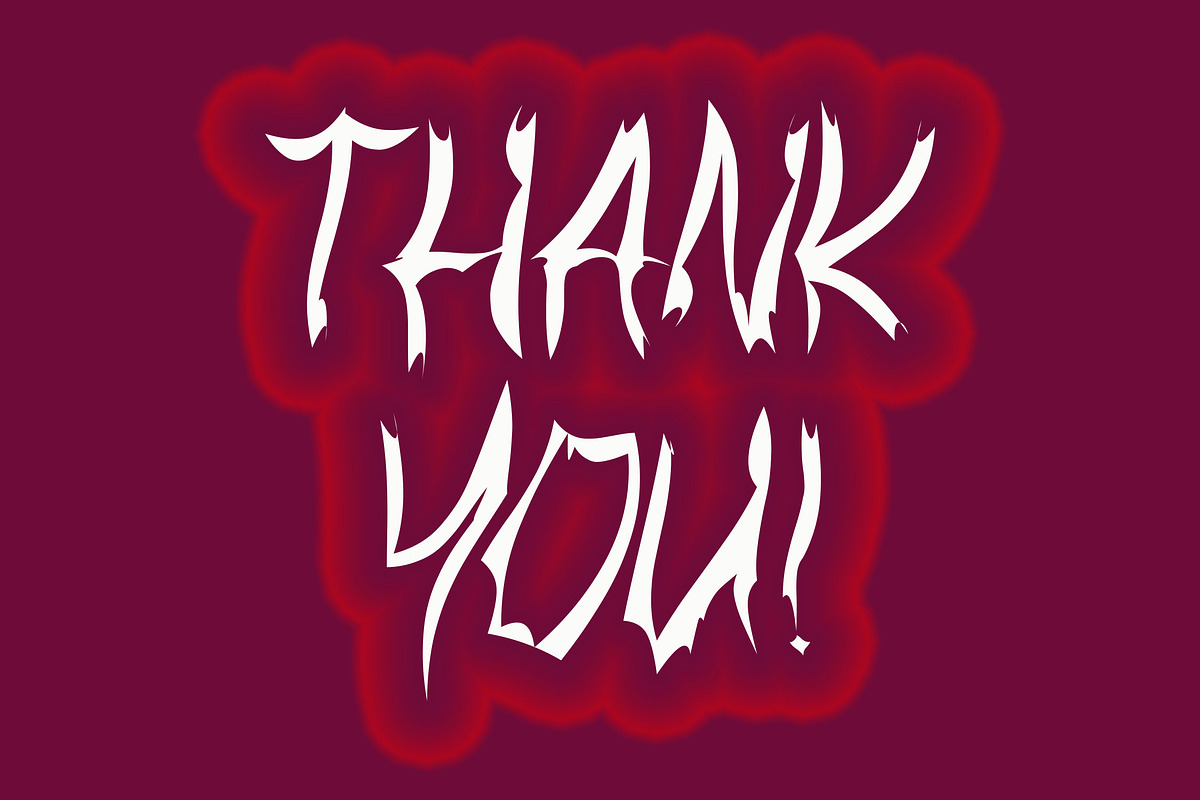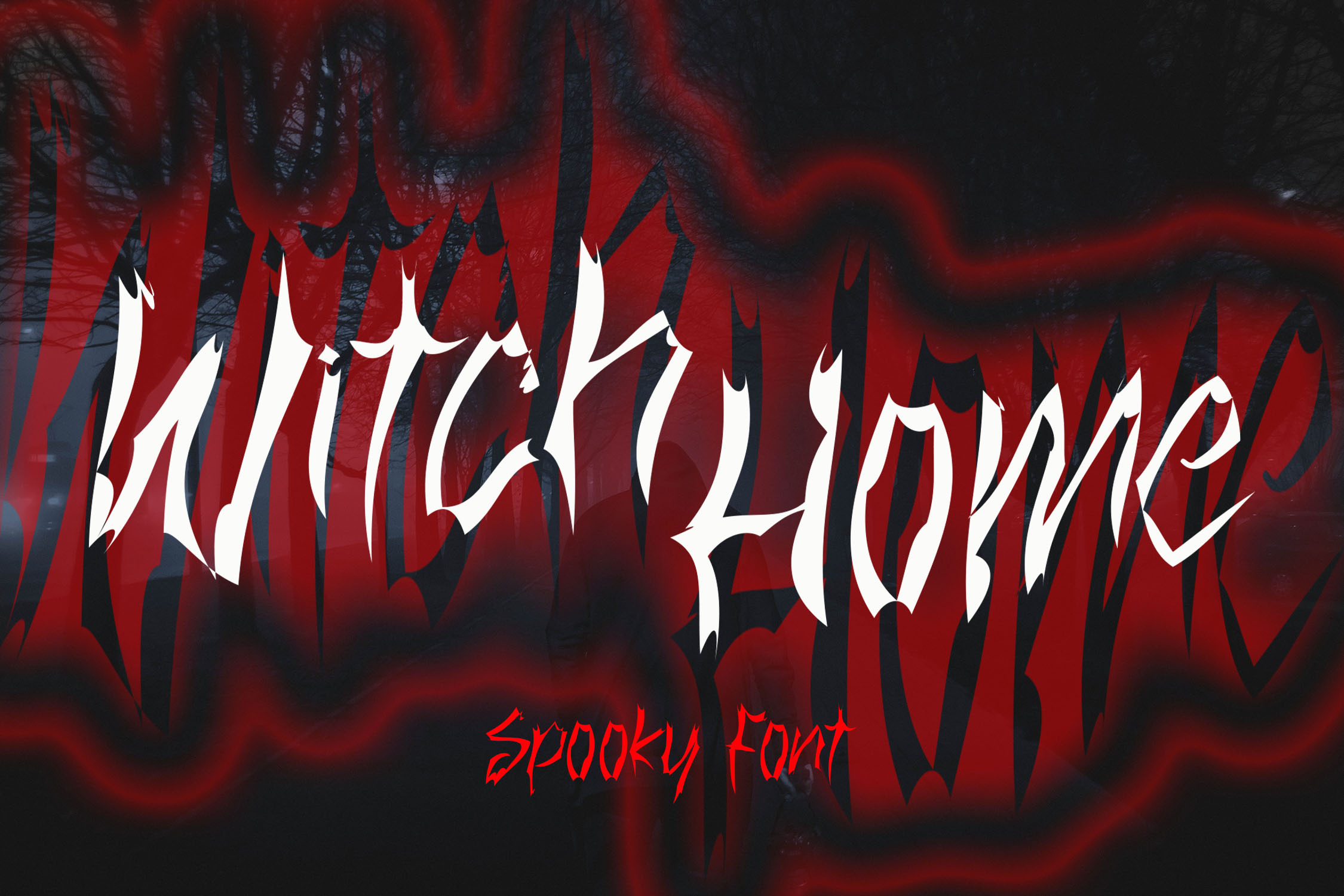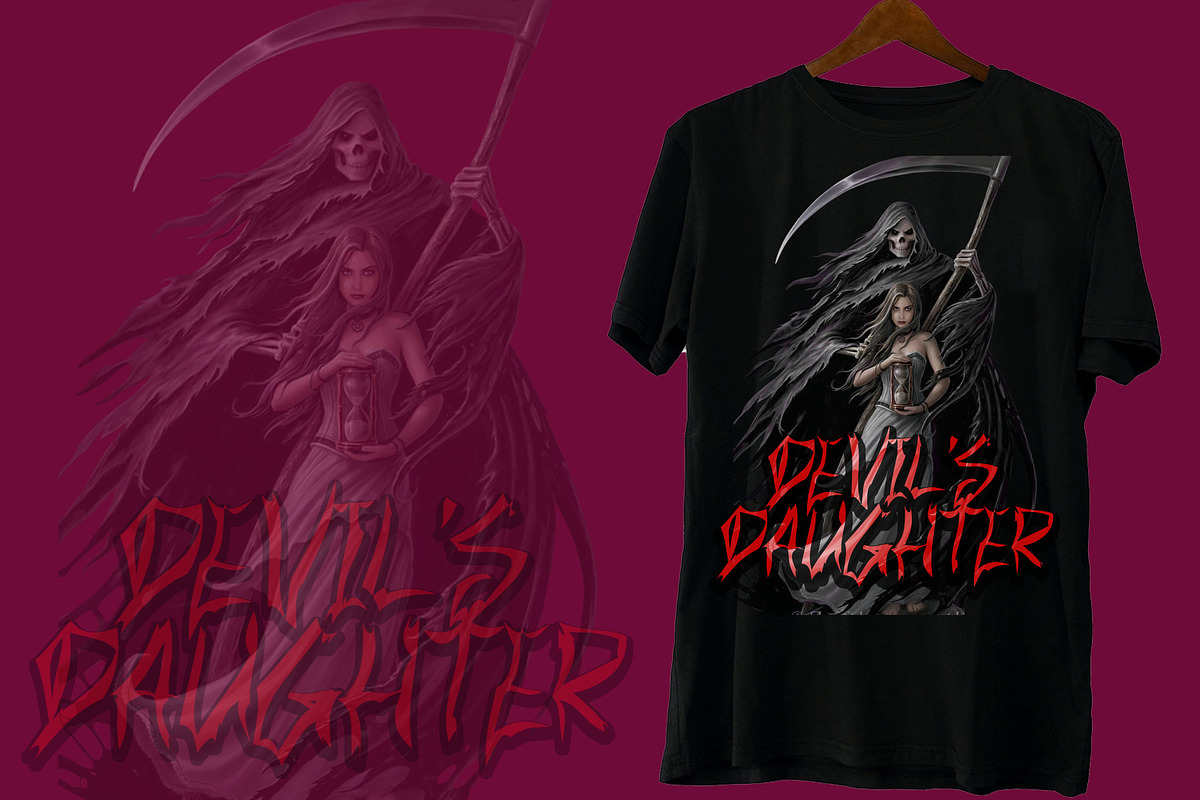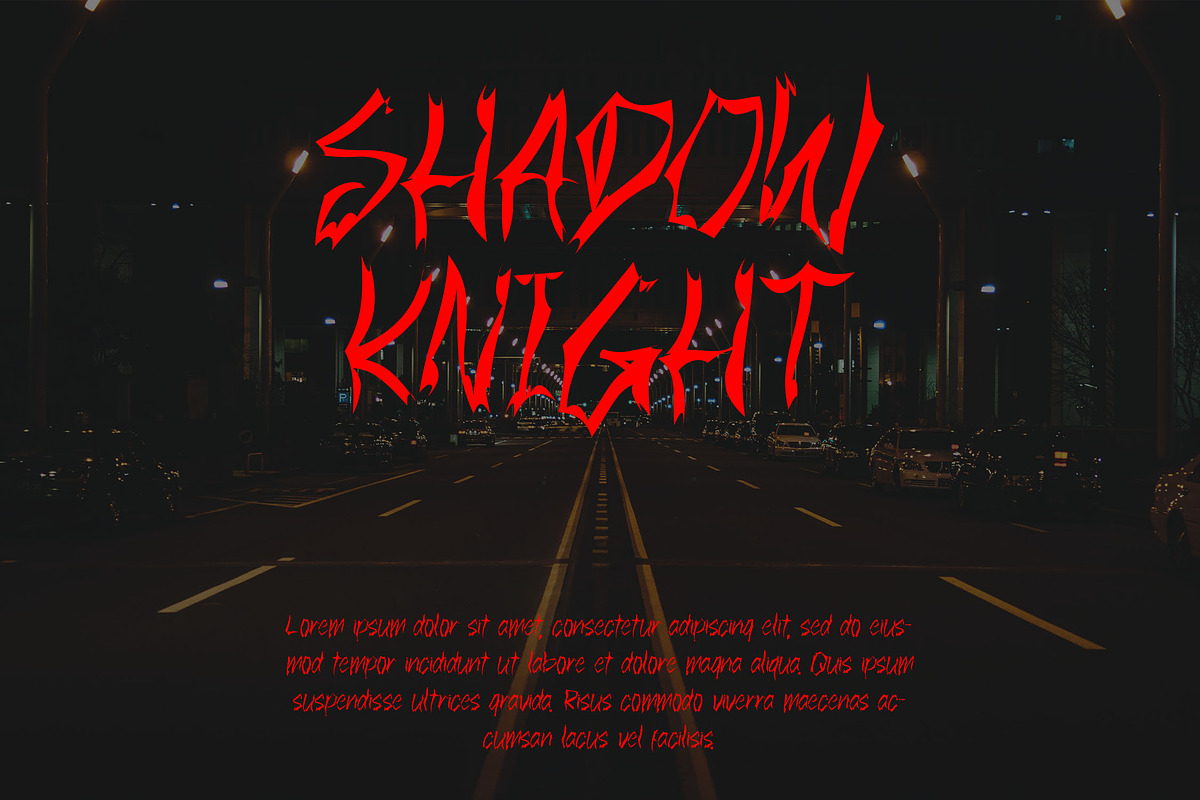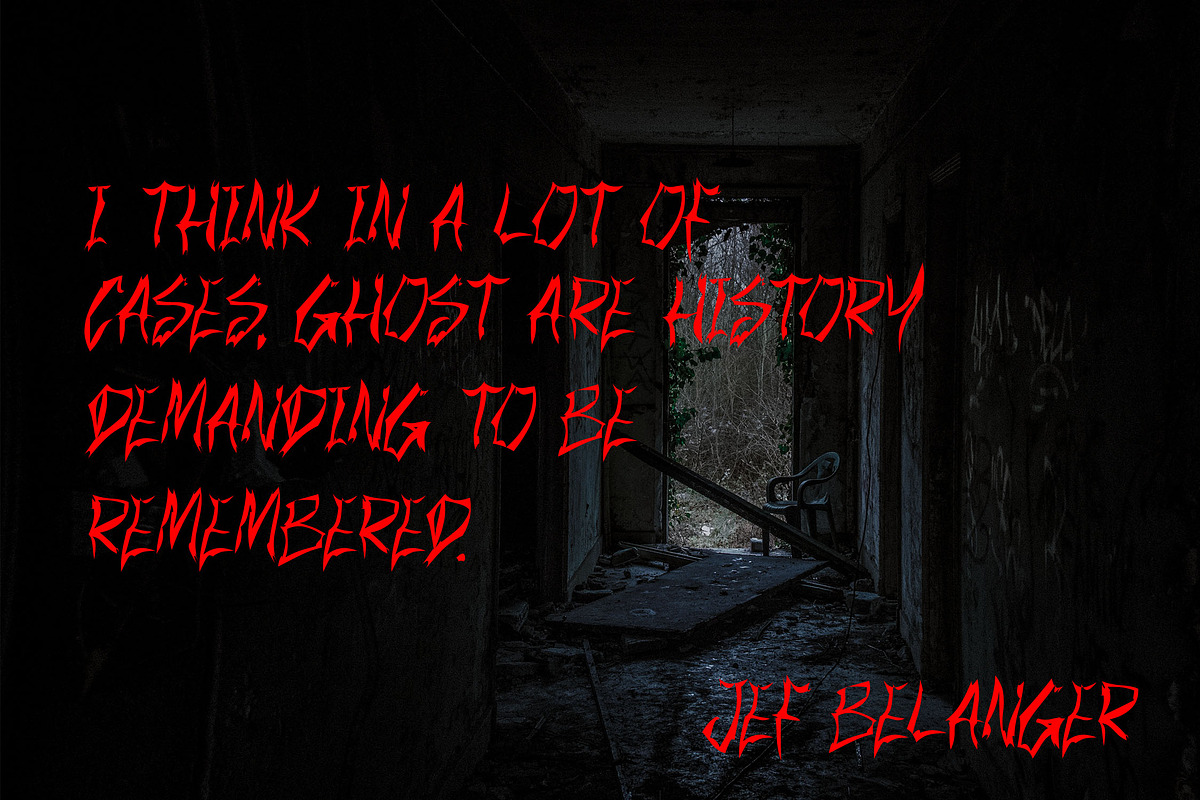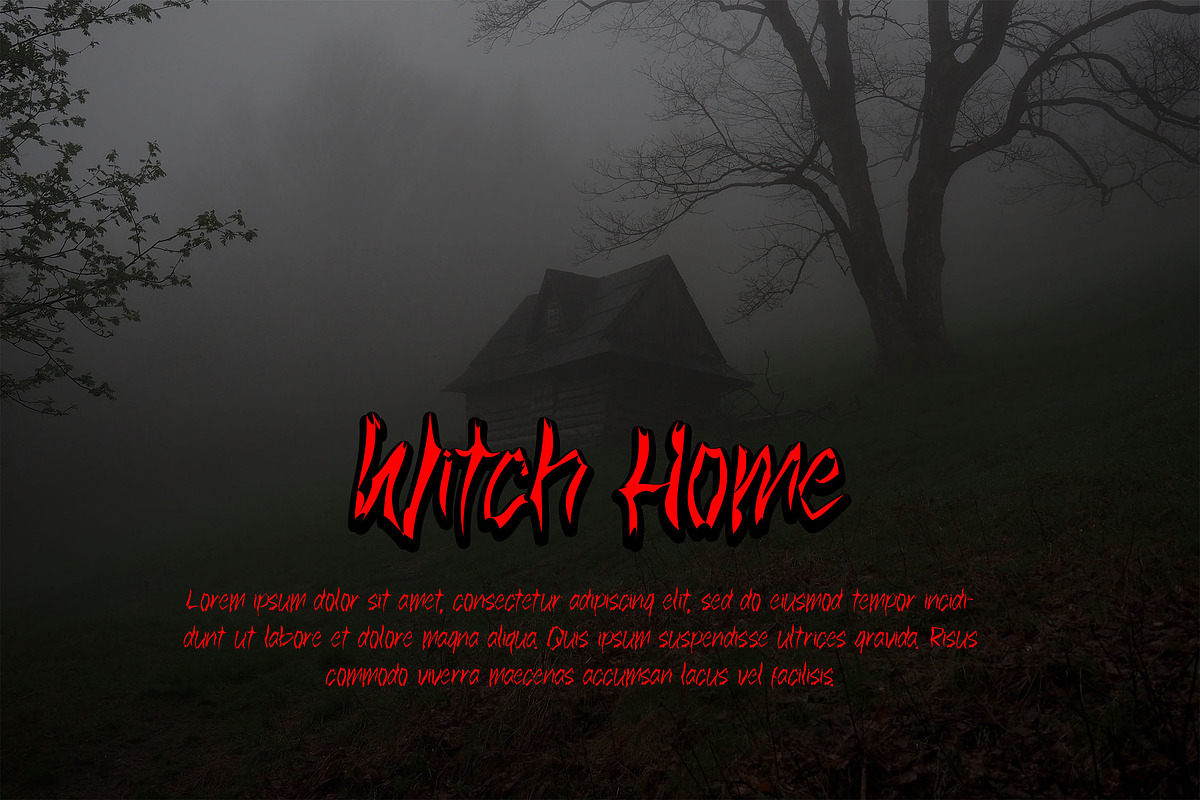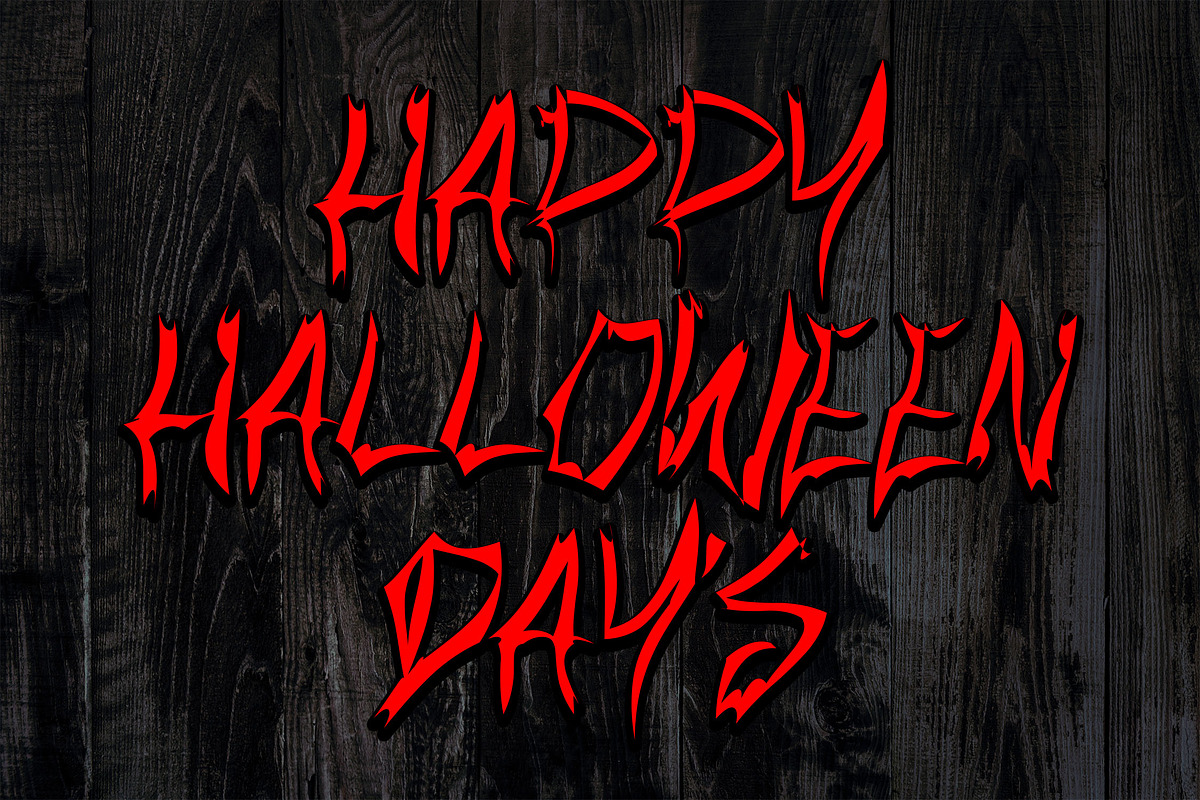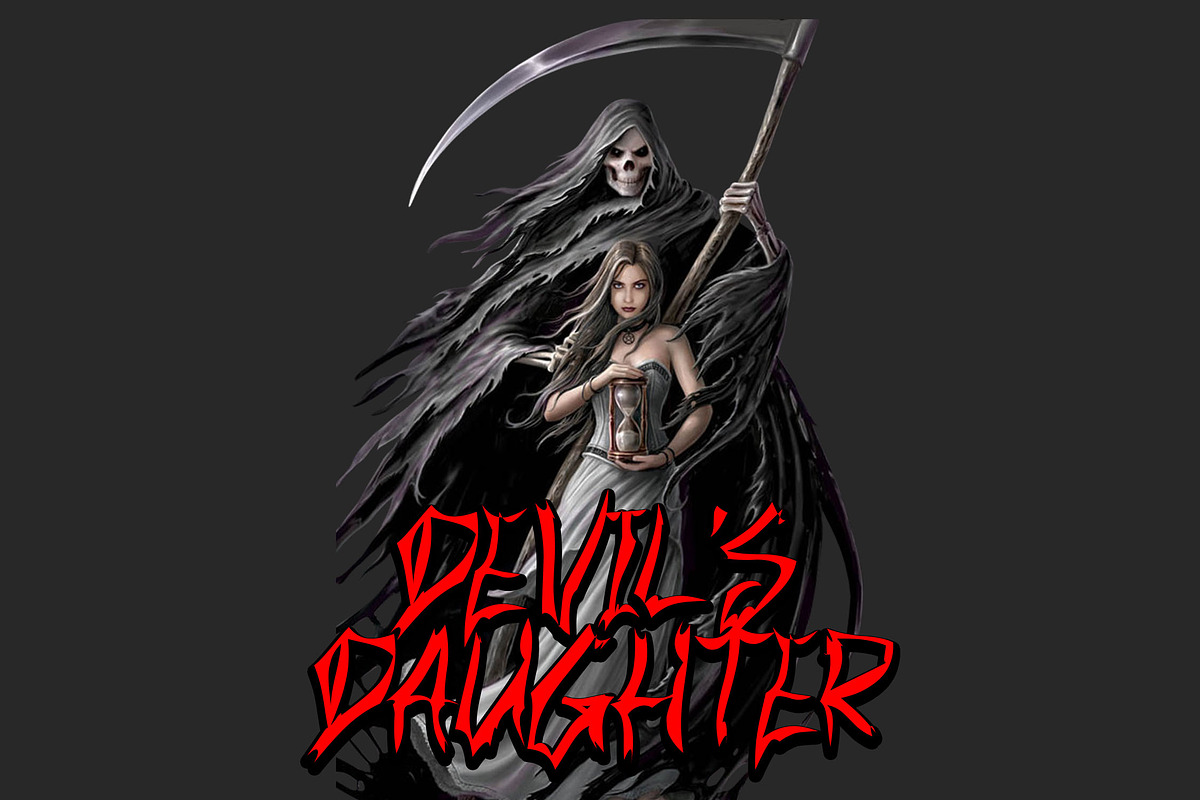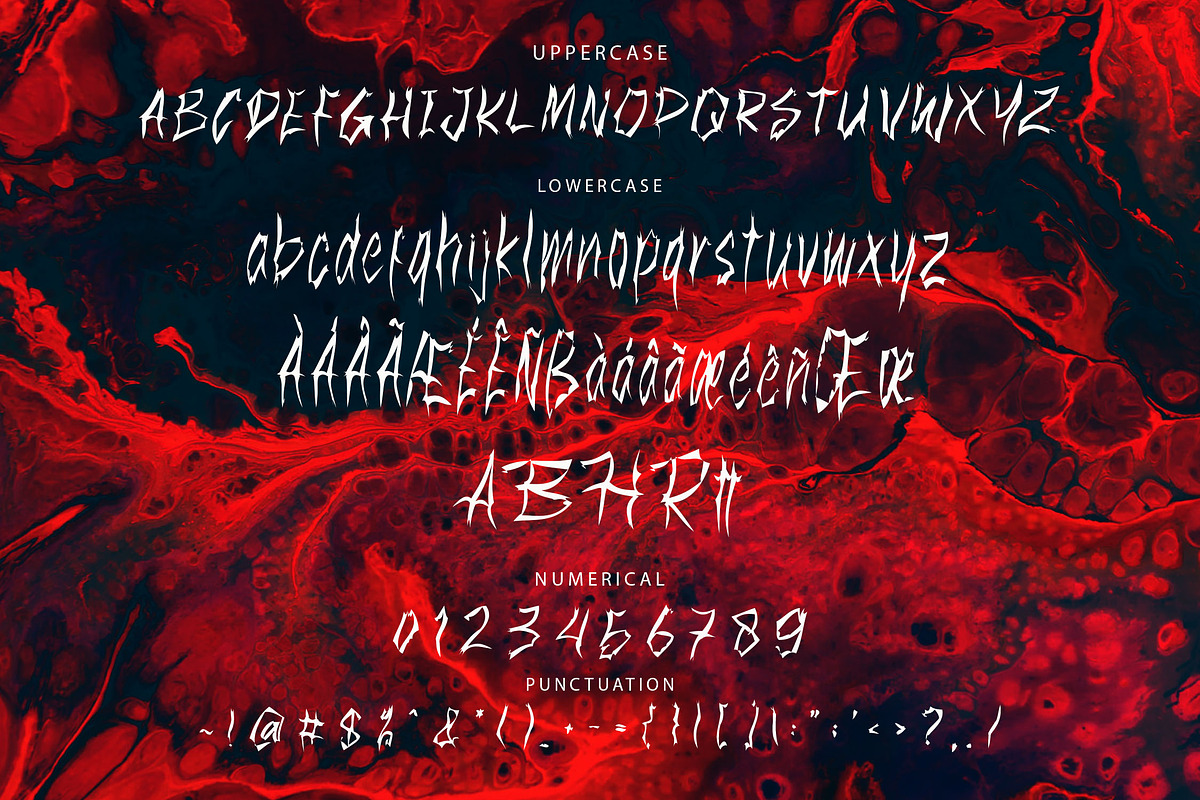
Witch Home - Halloween Font
DETAILS
Witch Home is a horror Halloween themed font with a very unique shapes character. This font is perfect for Halloween card and Halloween banner designs. This font is suitable for making previews and covers, horror logo designs, shirt designs, and other horror graphic needs.
- Stylistic Alternate